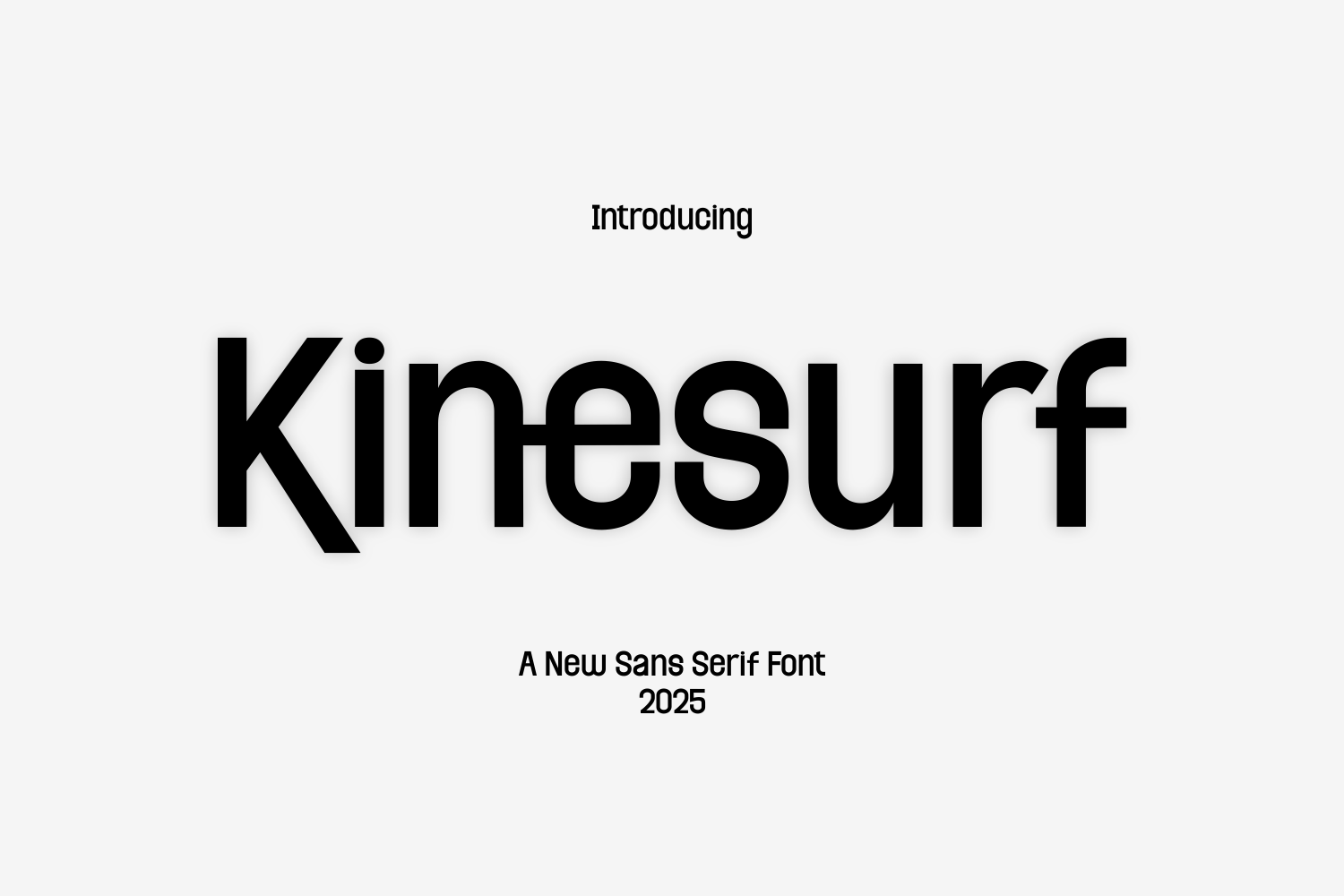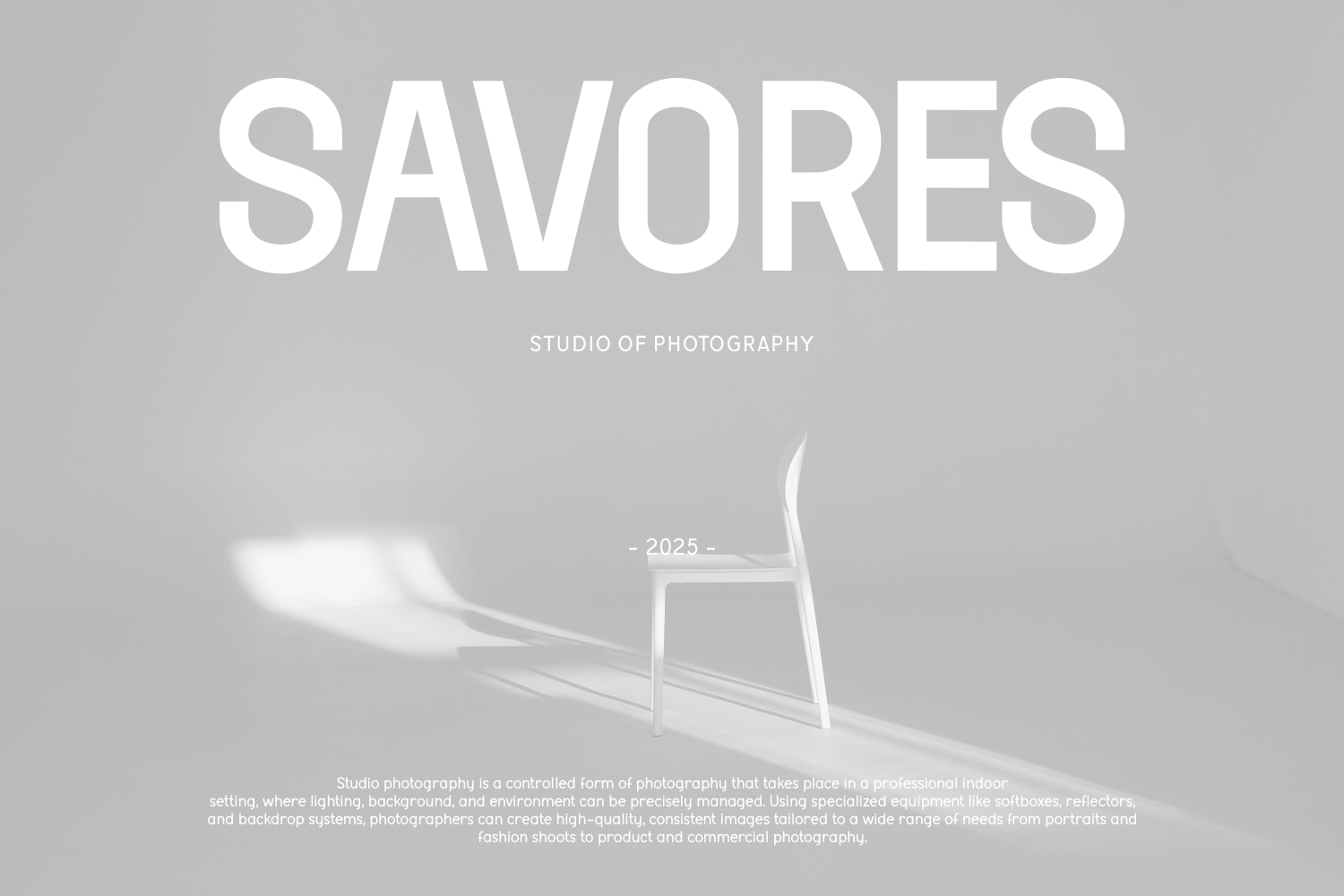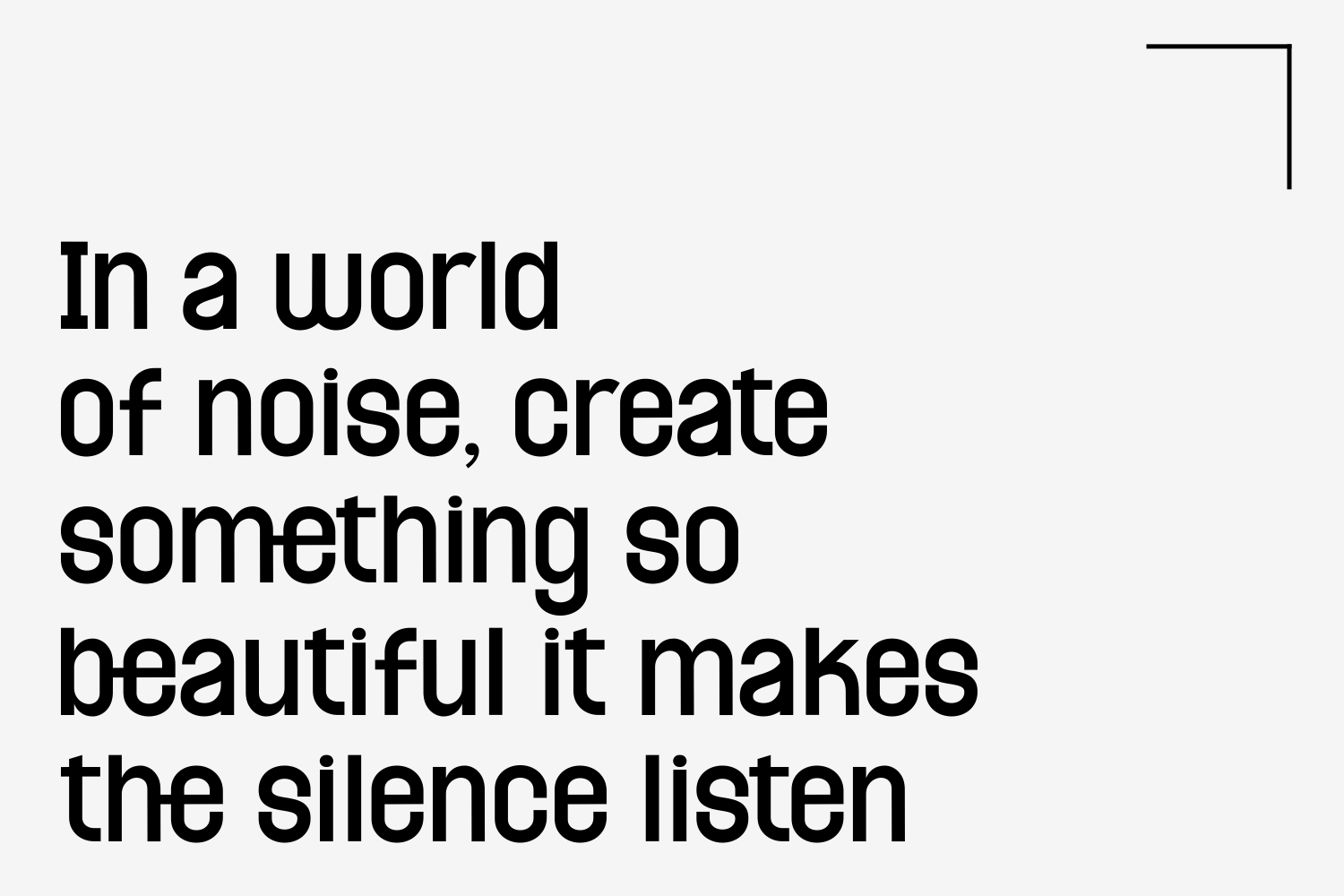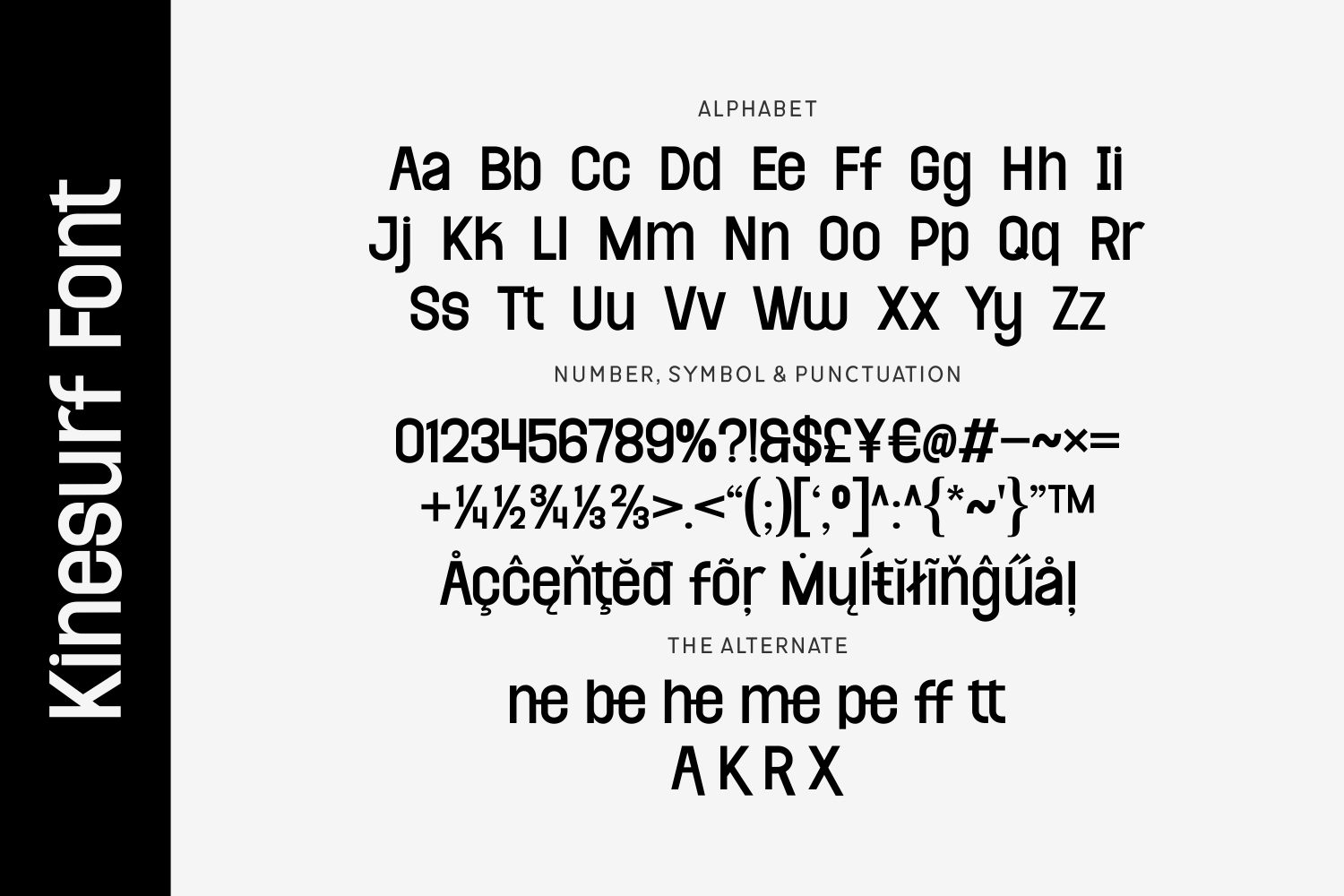
Kinesurf is a clean sans serif typeface with subtle experimental details for a modern twist. Its minimalist structure and versatile style make it suitable for tech branding, editorial layouts, and corporate identities.